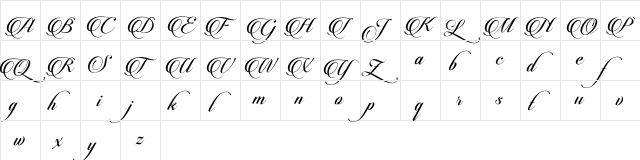
Candlescript Demo Version Regular
| Foundry | M Fairuzulhaq aka Ve |
| Designer | M Fairuzulhaq |
Design Context for Candlescript Demo Version Typeface
Candlescript Demo Version brings a calligraphic fluidity to the page — its connecting strokes and expressive curves give it an unmistakably human quality.
Font Pairing: Combine Candlescript Demo Version with a simple geometric sans for maximum contrast — the tension between flowing curves and clean structure is a classic typographic pairing.
Pro Tip: Use Candlescript Demo Version for short runs of text — names, titles, or taglines. Extended body copy in script faces tires the eye quickly.